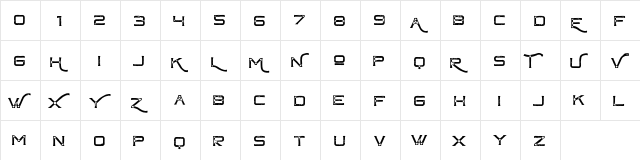
ChapterOne Vintage Free Regular
| Foundry | Dikas Studio |
| Designer | Andika Setiawan |
Design Context for ChapterOne Vintage Free Typeface
ChapterOne Vintage Free has the warm character of retro typography — evoking diners, record sleeves, and the golden age of print advertising.
Font Pairing: Combine ChapterOne Vintage Free with a simple slab or neutral sans — period-accurate companions reinforce the vintage feel without competing for attention.
Pro Tip: Lean into ChapterOne Vintage Free's period character by pairing it with aged paper textures, muted colour palettes, and vintage illustration styles.